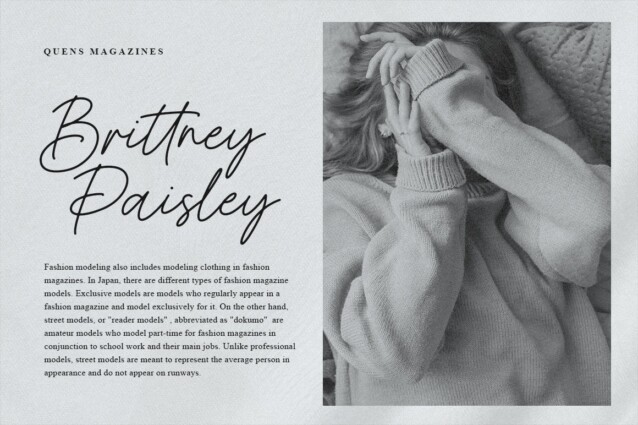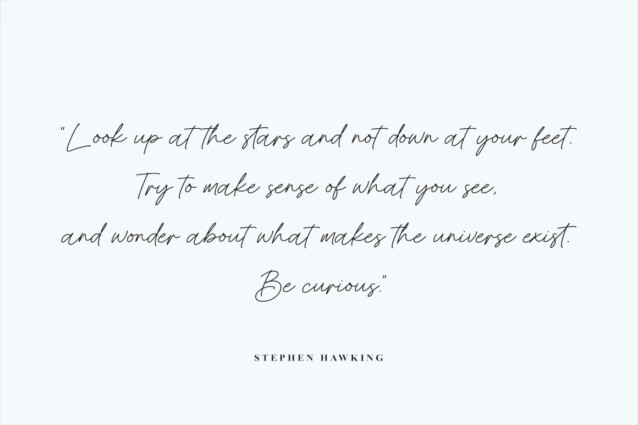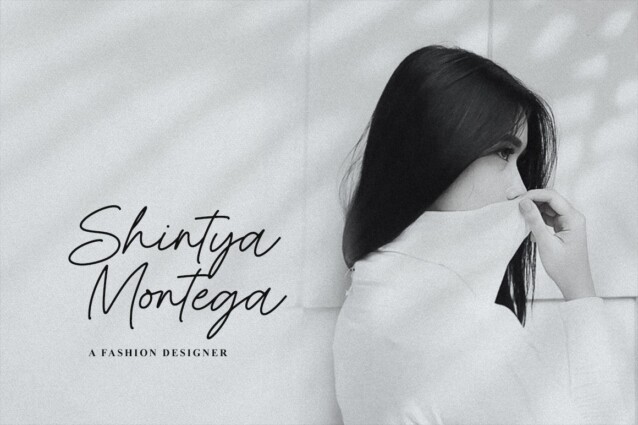
Present Anthem Font
Present Anthem Font is a stunning handwriting font designed by Heinzel Std with a natural twist. It looks stunning on wedding invitations, thank you cards, quotes, greeting cards, logos, branding, business cards, social media posts, magazines, marketing materials, and every other design that needs a handwritten touch. Fall in love with its incredibly distinct and timeless style and use it to create spectacular designs!